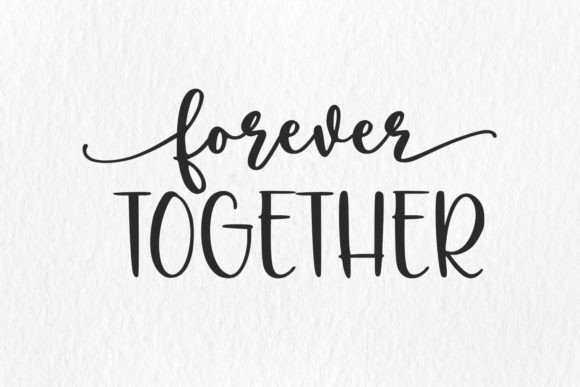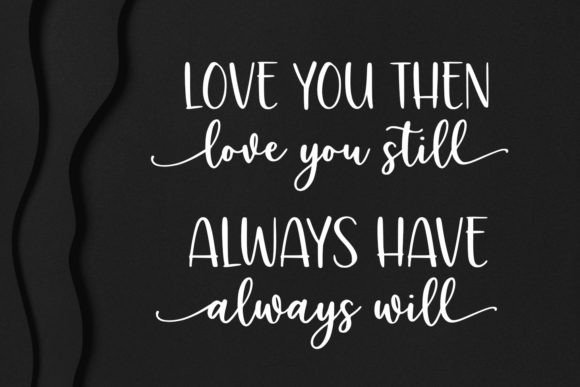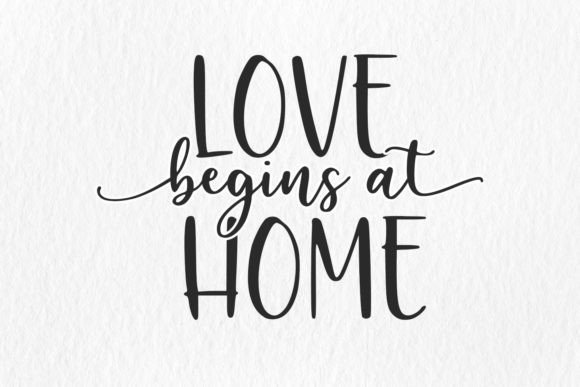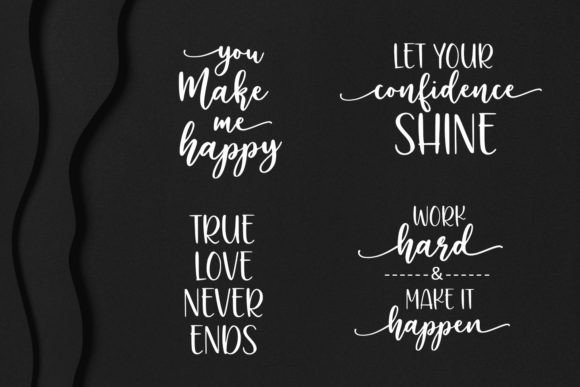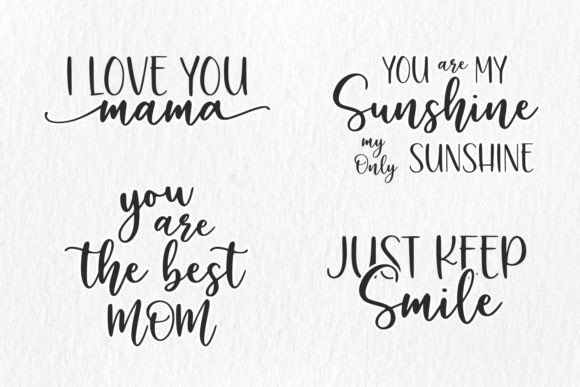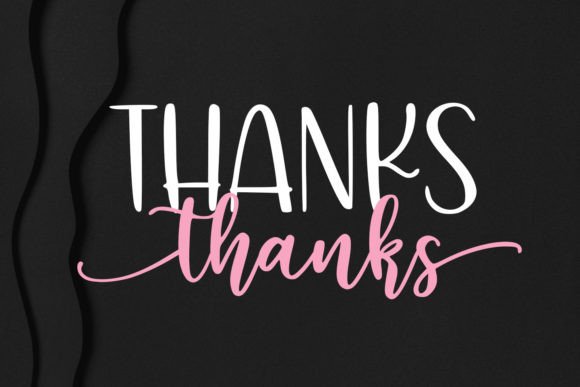
Introduction to Pinky Melon Font
Pinky Melon is a beautiful font pairing of a handwritten script and a sleek sans-serif.
Together, they create a harmonious balance of sophistication and simplicity Perfect for wedding invitations, high-end branding, and more, this font duo adds a touch of elegance to your designs.
Key Features of Pinky Melon Font
Pinky Melon Font offers exceptional quality and versatility, making it a valuable addition to your design toolkit. Whether you’re creating for personal projects or commercial use, Pinky Melon Font delivers professional results.